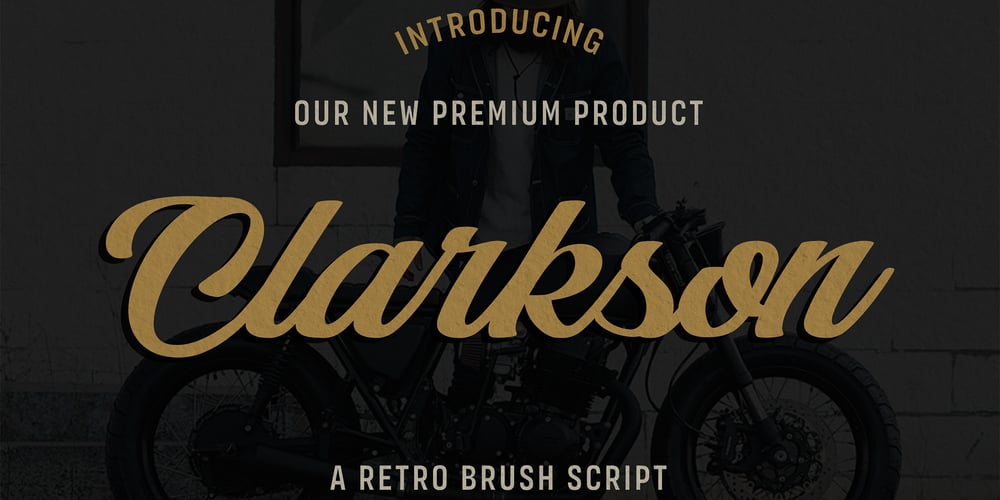
Clarkson
Clarkson font
Clarkson Font Family was designed by Heri Imanudin and published by Krafted. Clarkson contains 1 styles and family package options. Whether you’re promoting your business, designing merchandise, or creating a new social media campaign, good presentation is crucial. The font you choose plays a key role – it completely shapes your audience’s reaction.Introducing Clarkson – A Retro Brush Script Font.Perfectly balanced between power and refinement, this handcrafted font delivers your message with style. The modern take on the retro design makes it ideal for branding, business cards, presentations, logos, clothing, packaging, banners, ads, and much, much more.What you’ll get: Multilingual & Ligature Support Full sets of Punctuation and Numerals Compatible with: Adobe Suite Microsoft Office KeyNote Pages Software Requirements: The fonts that you’ll receive in the pack are widely supported by most software. In order to get the full functionality of the selection of standard ligatures (custom created letters) in the script font, any software that can read OpenType fonts will work. We hope you enjoy this font and that it makes your branding sparkle! Feel free to reach out to us if you’d like more information or if you have any concerns.